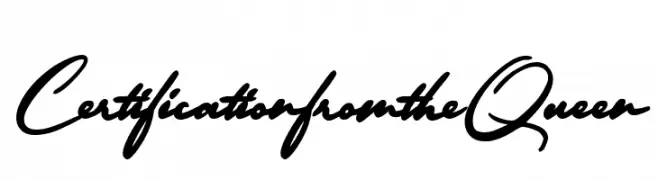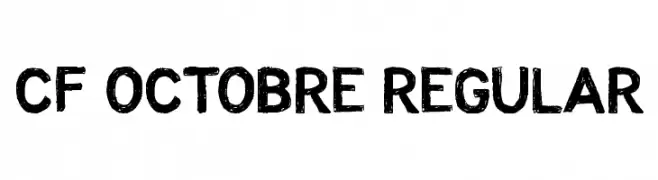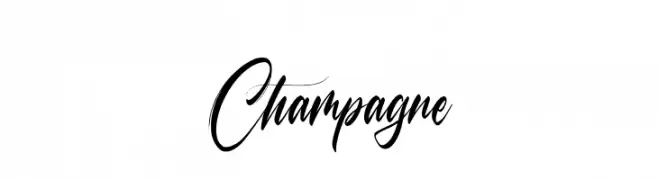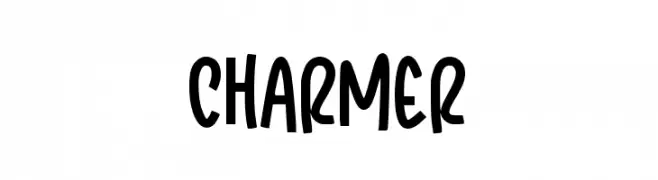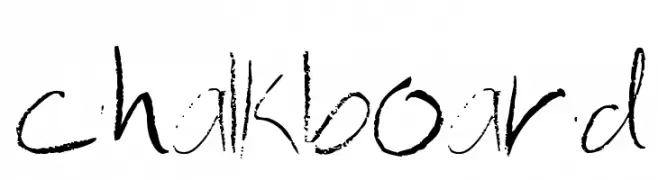
A sophisticated script font with flowing, cursive lines.
A bold, textured font with a distressed, handcrafted appearance.
A whimsical serif font with decorative swirls and classic elements.
An elegant script font with flowing, cursive letters and a sophisticated flair.
A rugged, textured font with a hand-drawn, charcoal-like appearance.
A playful, bold font with rounded, irregular letterforms.
An elegant script font with flowing, intricate loops and swirls, exuding sophistication.